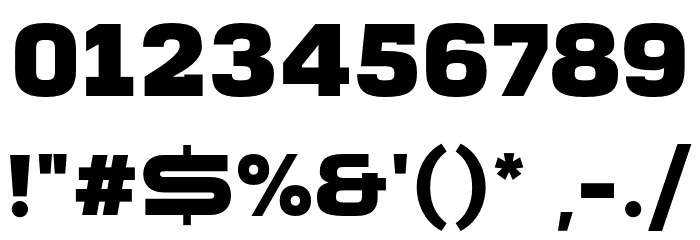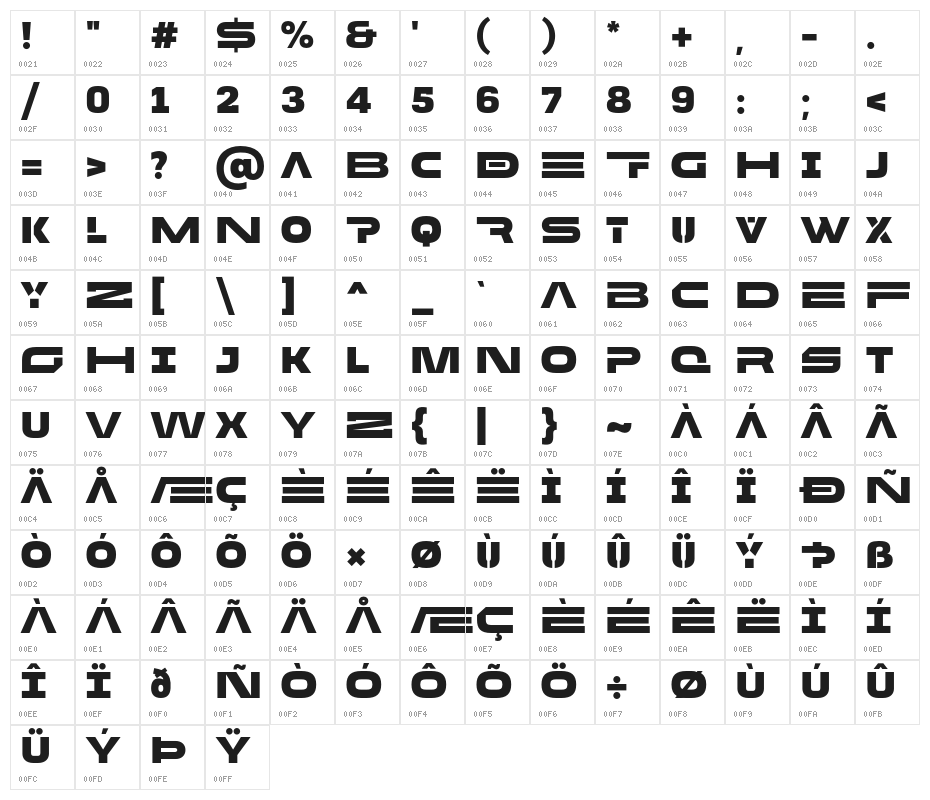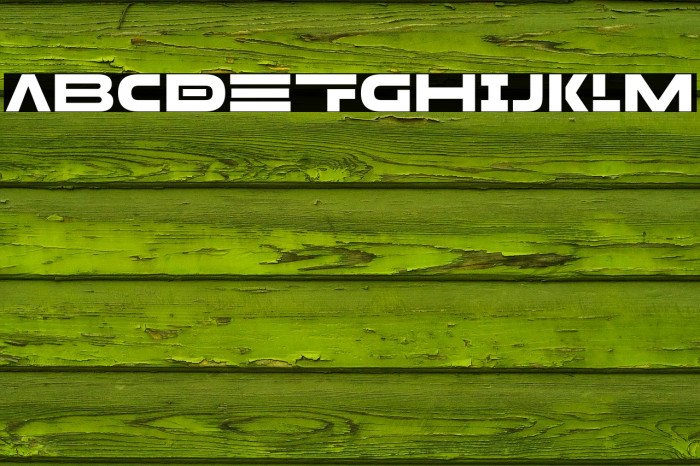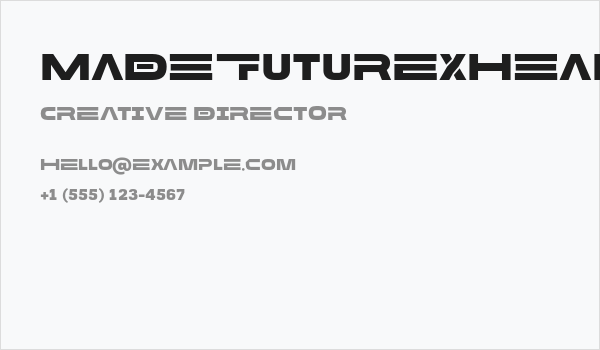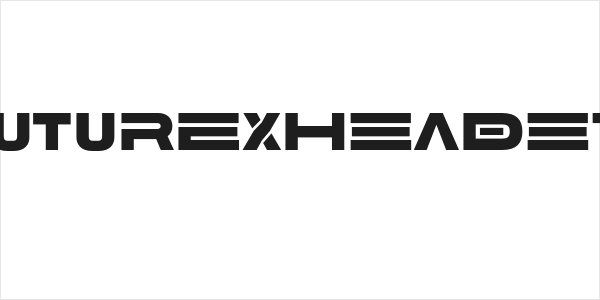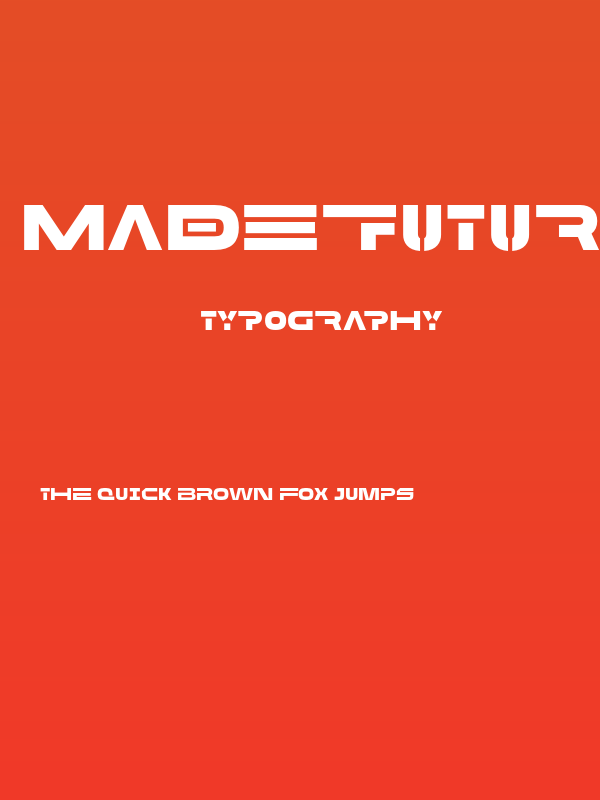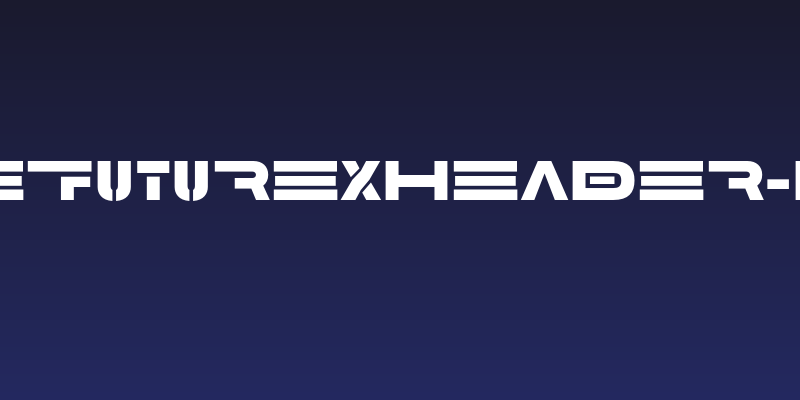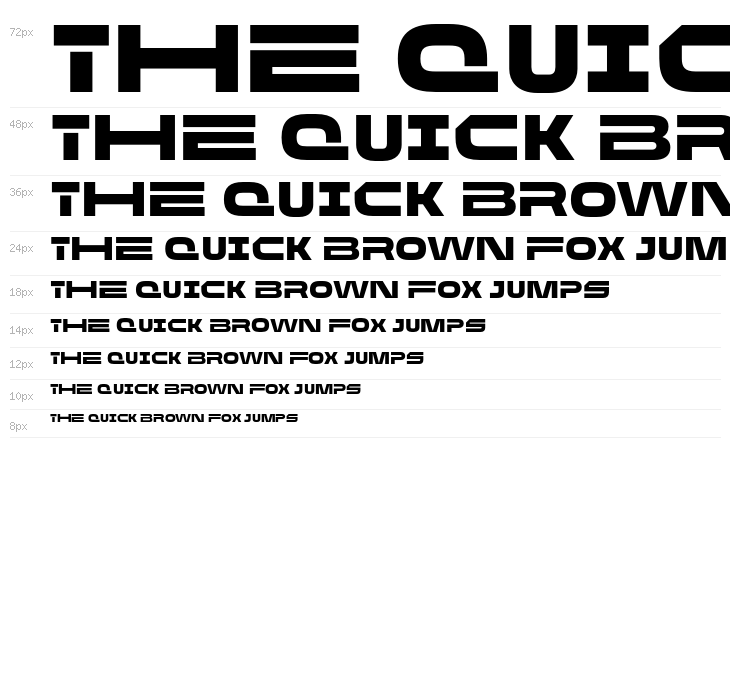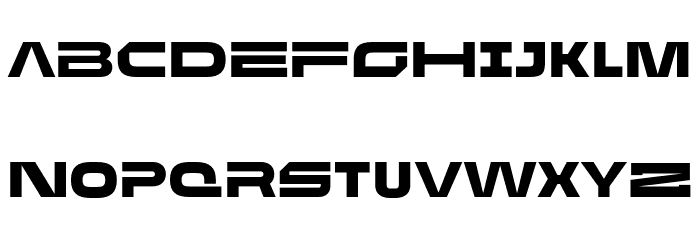
MADEFutureXHEADER-Black Font
MADEFutureXHEADER-Black Description
This font features a bold, futuristic design with a strong geometric influence. The characters are constructed with sharp angles and clean lines, giving it a modern and dynamic appearance. The uppercase letters are particularly striking, with unique cutouts and a sense of movement. The numbers and special characters maintain the same bold and structured style, ensuring consistency across all elements. This font is ideal for projects that require a contemporary and impactful look, such as technology branding, sports team logos, or sci-fi themed designs.
| Proposed Projects | Ideal for technology branding, sports logos, sci-fi themes, and modern advertising. |